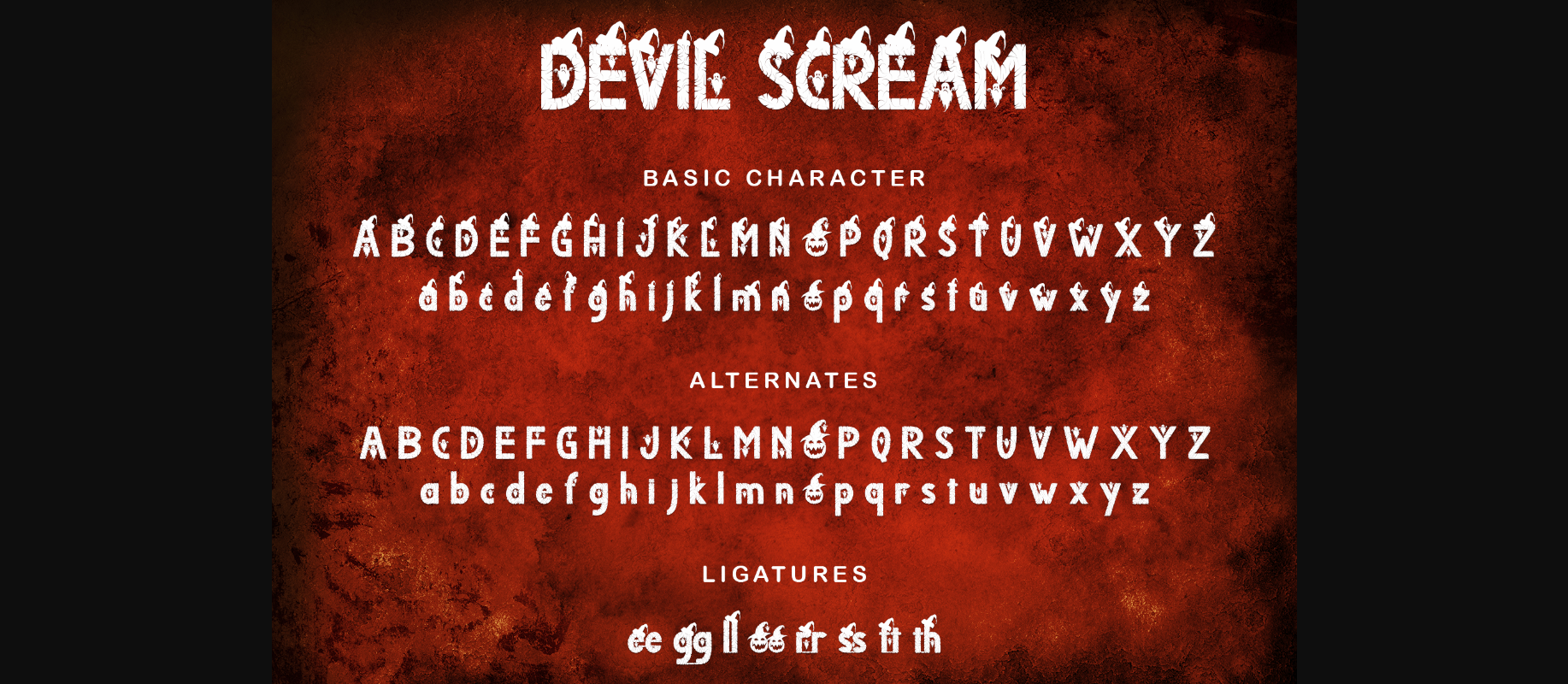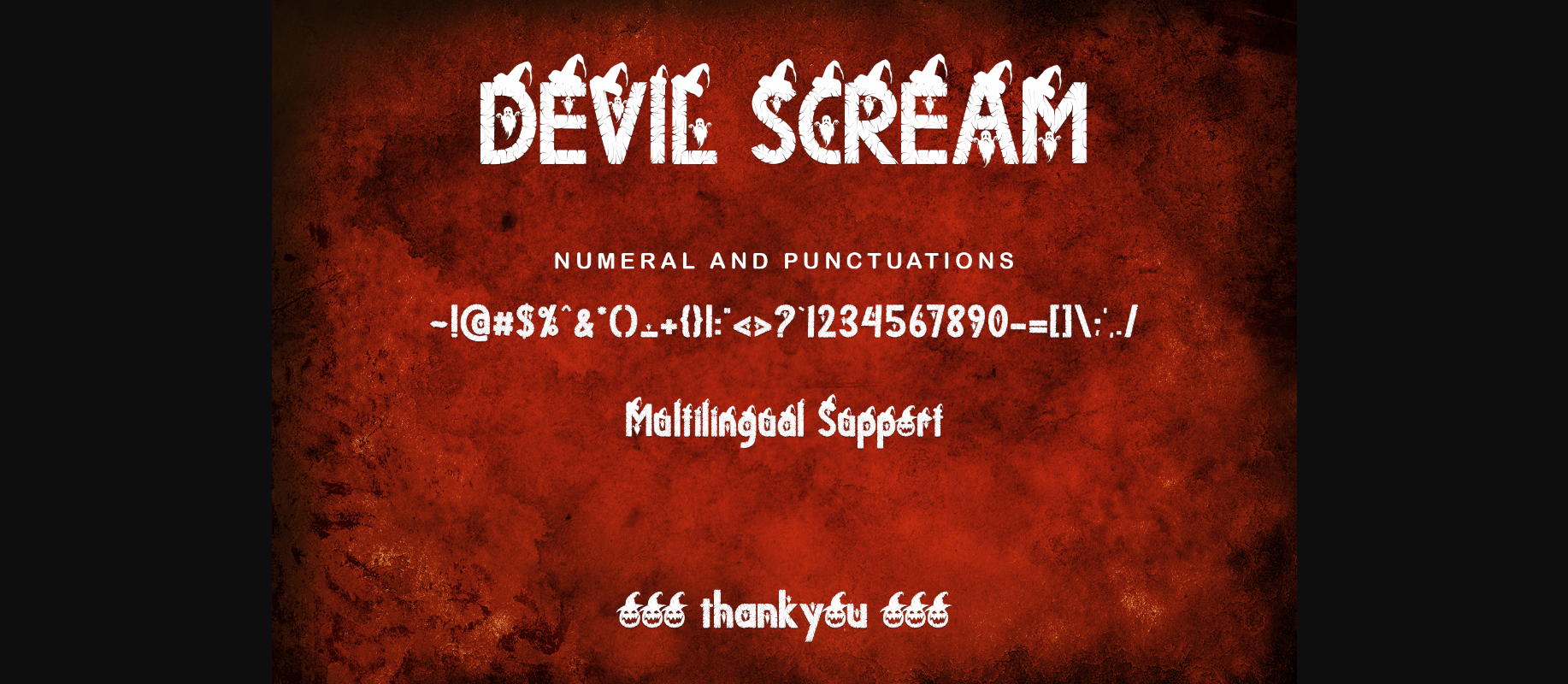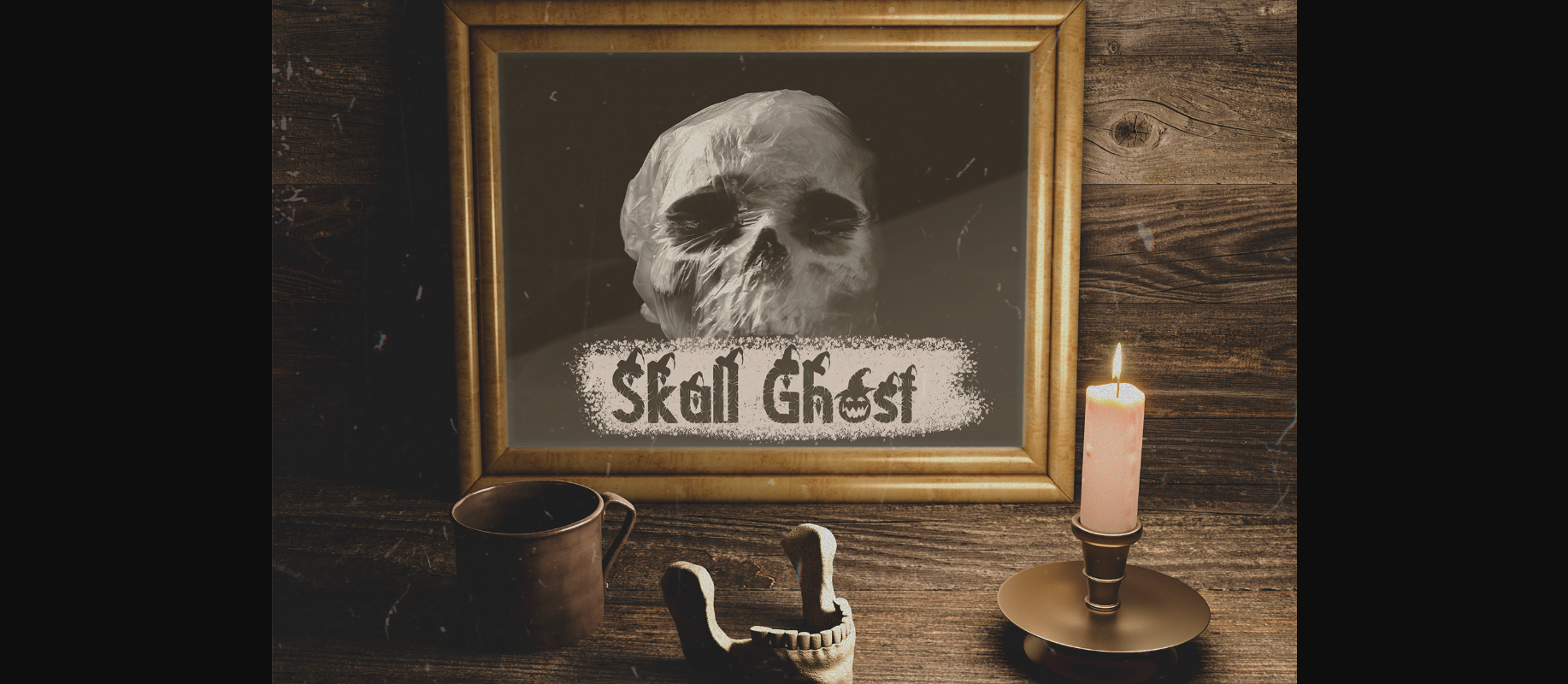
About Devil Scream Font
Devil Scream is a cool and spooky decorative font. No matter the topic, this font will be an incredible asset to your fonts’ library, as it has the potential to elevate any creation.